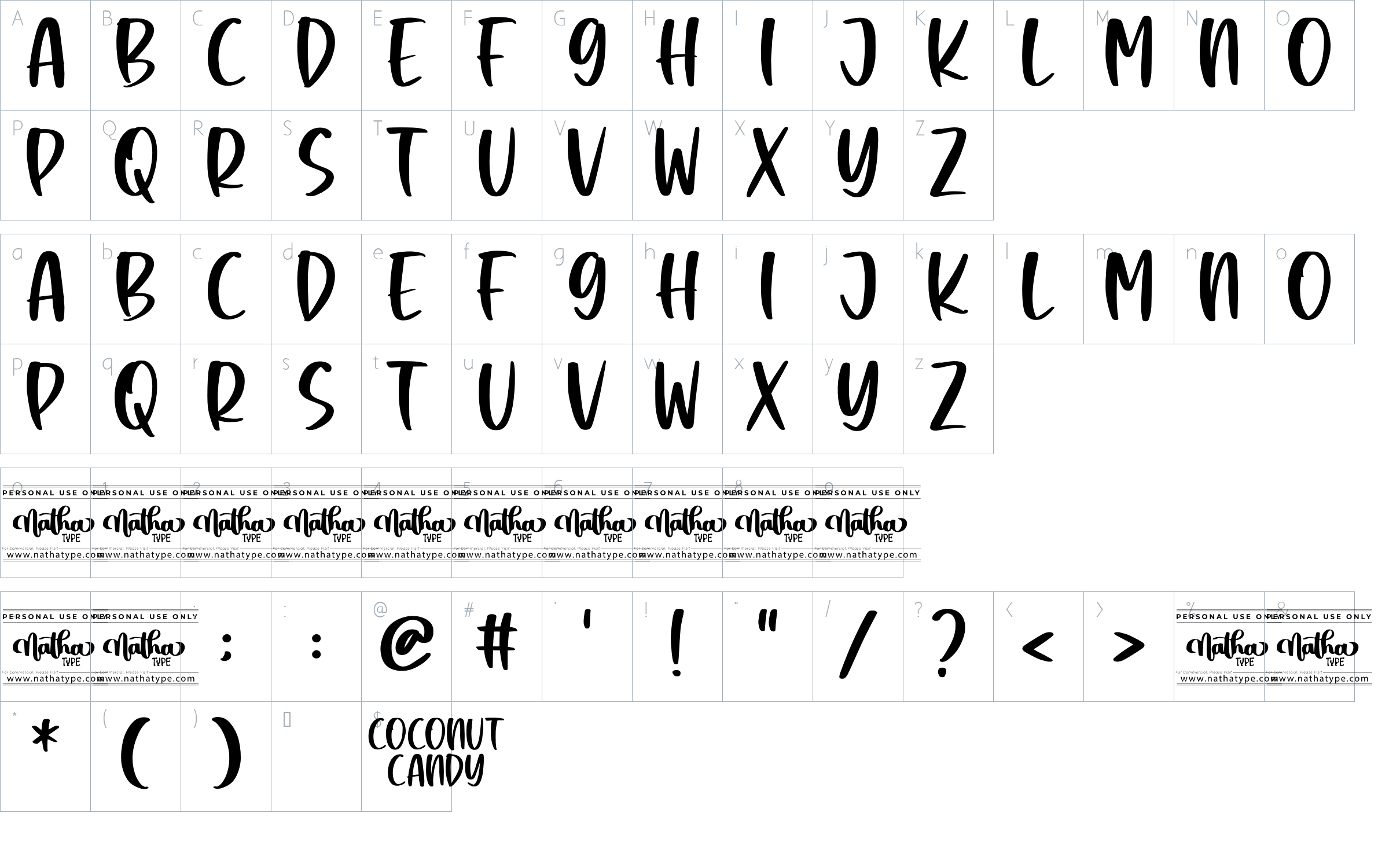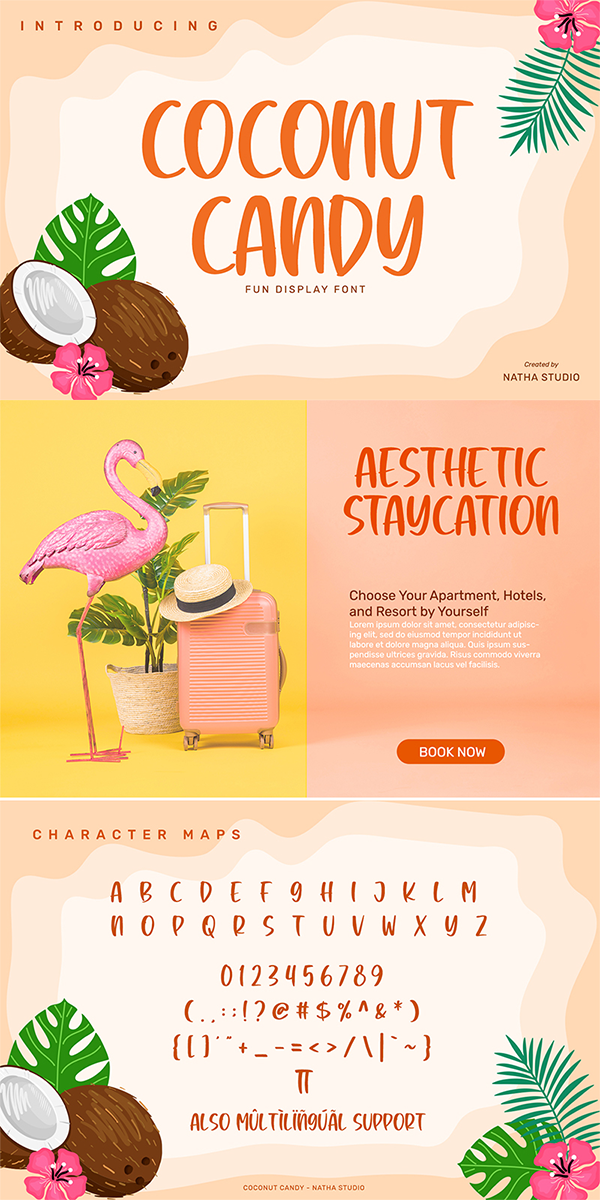
Coconut Candy Font
About Coconut Candy
Coconut Candy is a fun display font. It brings a beautiful and attractive typeface. Made for any professional projects. This font will look amazing in wedding invitations and greeting cards to social media quotes, branding, and more!